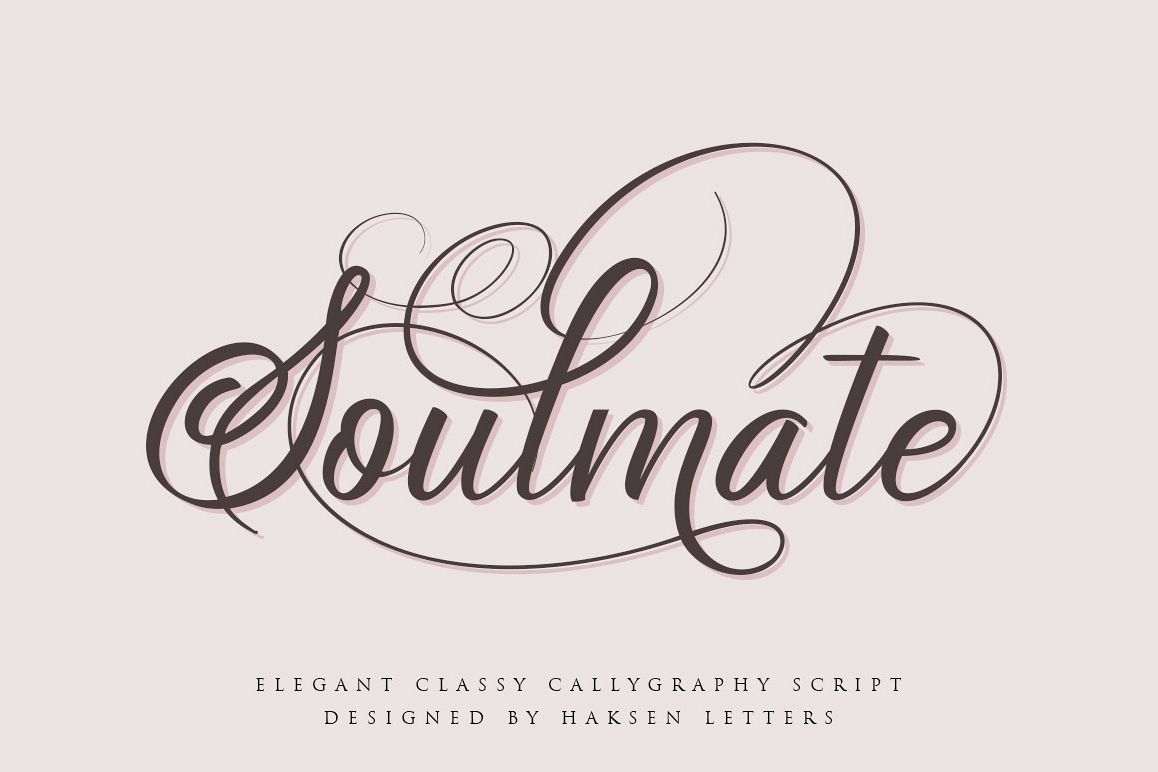
Soulmate//Luxury beauty calligraphy
Soulmate
Do You like Calligraphy Script with classy feel?
Introduce Soulmate an elegant, luxury and classy script with many alternates.Soulmate comes with luxury feel with many alternates for expression of your letters.